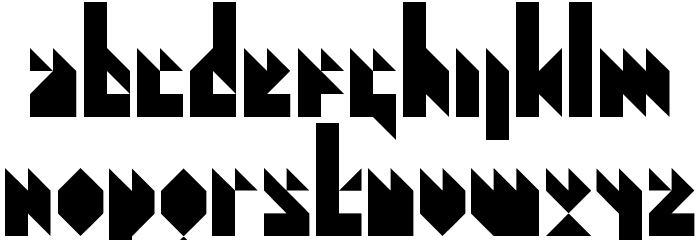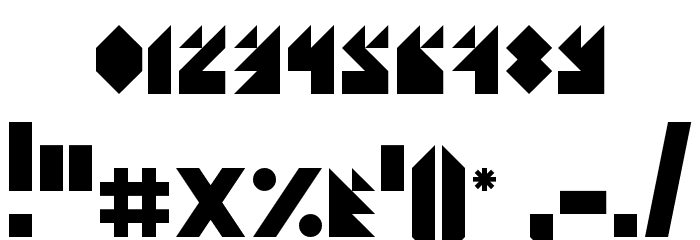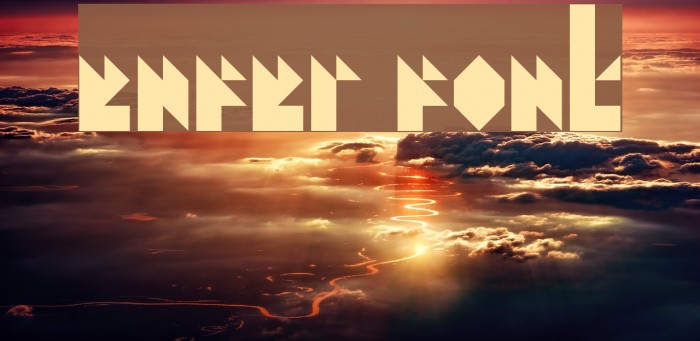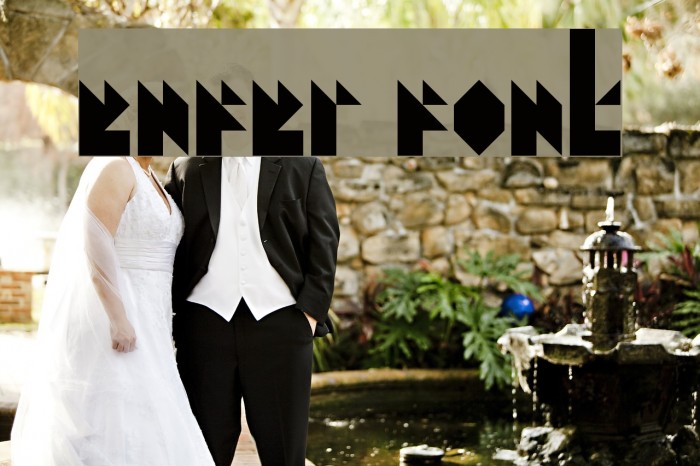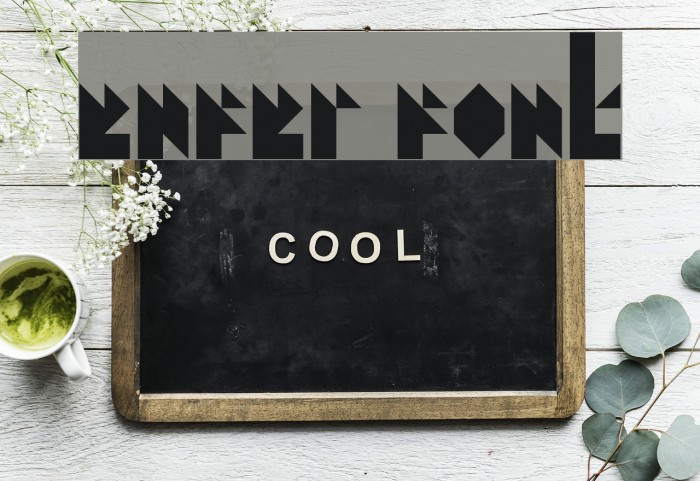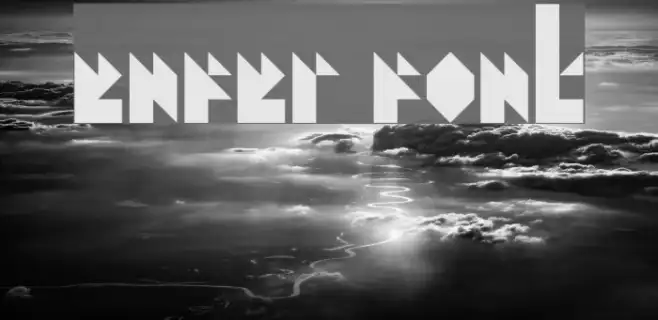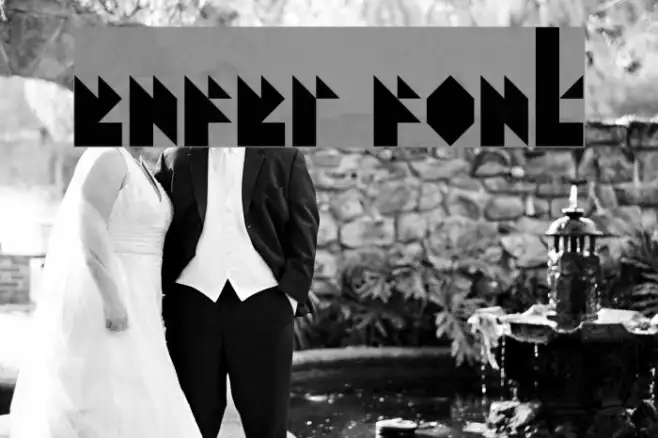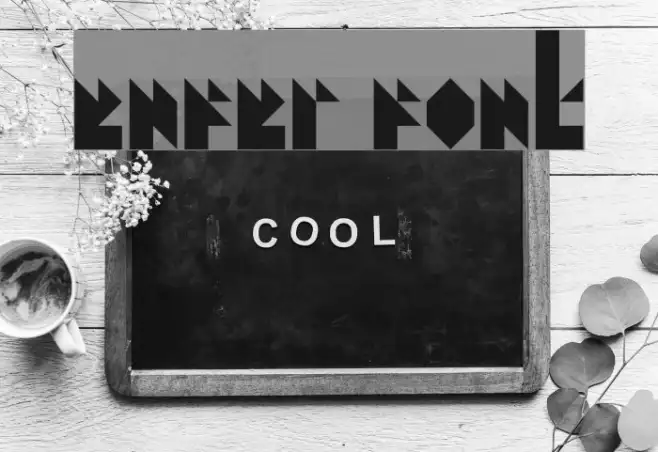
ENfer Font
This font features a bold, geometric design with sharp angles and a distinct, edgy appearance. The characters are constructed with a series of triangular and rectangular shapes, creating a highly stylized and modern look. The uppercase and lowercase letters maintain a consistent style, with each character exhibiting a unique angular form. Numbers and special characters follow the same design principles, ensuring uniformity across the font. The overall aesthetic is striking and unconventional, making it suitable for projects that require a strong visual impact.
A bold, geometric font with sharp angles and a modern, edgy style.
- Font: ENfer
- Proposed Projects: Ideal for branding, posters, album covers, and any project needing a bold, modern statement.